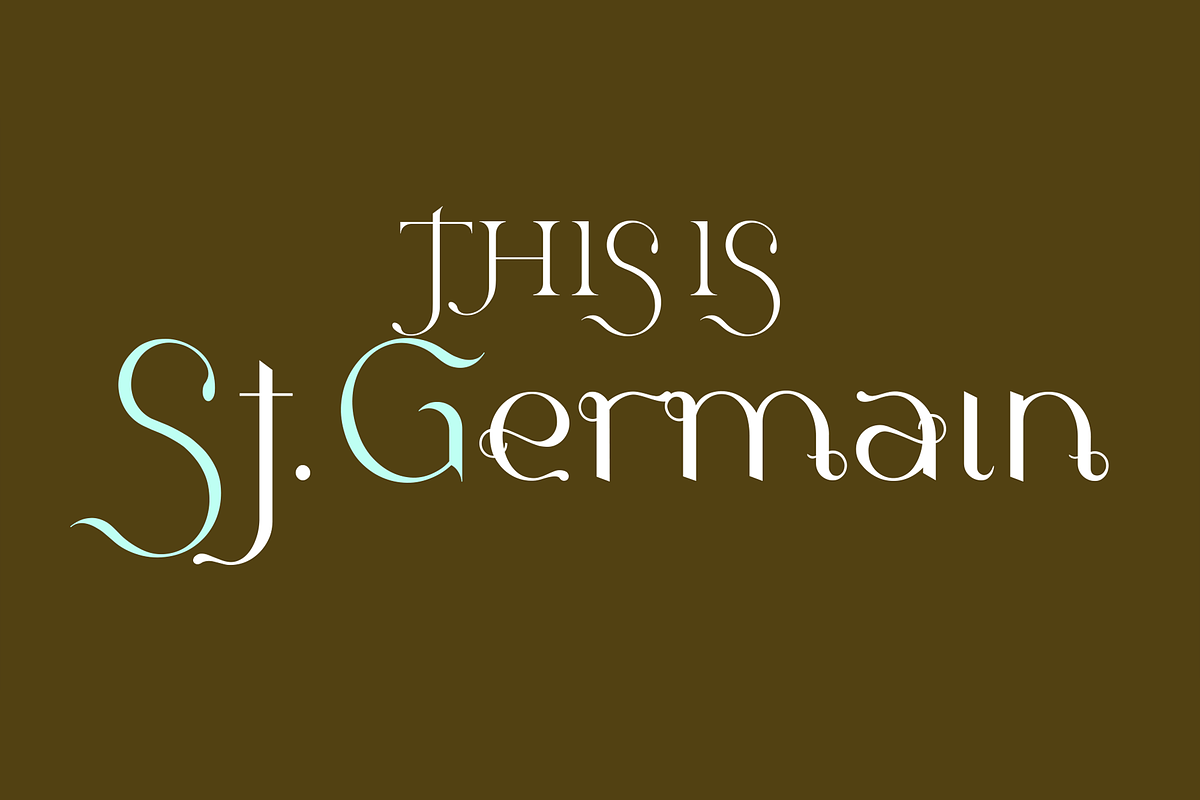
St. Germain – Beautiful Serif Font Free Download is an elegant and refined typeface that blends classic serif structure with modern sophistication. With its high-contrast strokes, delicate curves, and graceful proportions, this font is ideal for luxury branding, editorial layouts, fashion headlines, invitations, and upscale packaging.
Designed to exude class and timeless beauty, St. Germain offers strong readability while maintaining a distinct personality. It’s perfect for designers who want to convey elegance, authority, and high style in their projects.
Elevate your designs with the graceful sophistication of St. Germain.